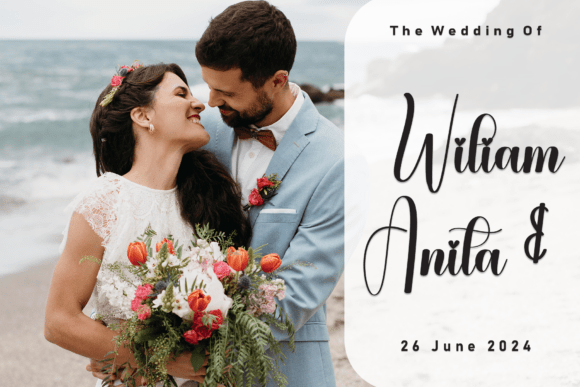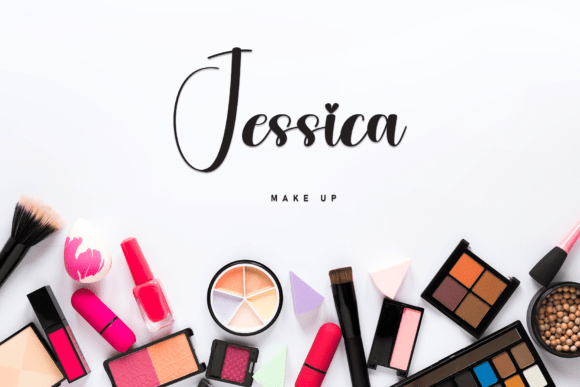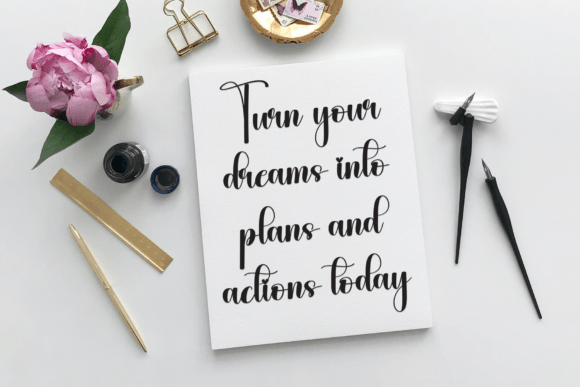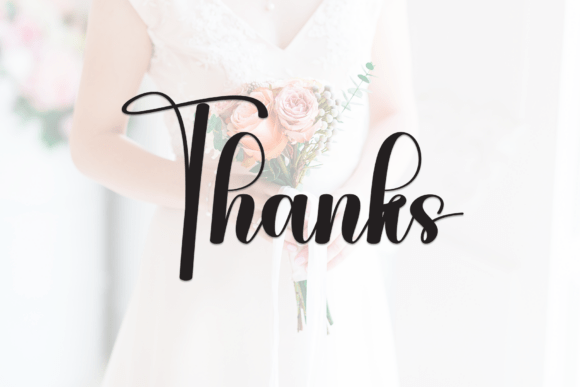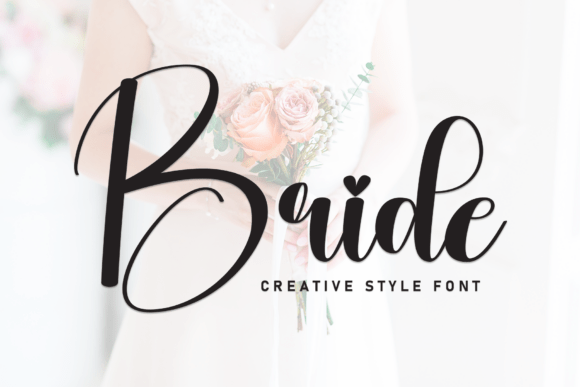
Introducing “Bride” – A Whimsically Elegant Handwritten Display Font
Are you looking for a font that embodies the perfect blend of playfulness and sophistication? Look no further than “Bride” – a beautifully crafted handwritten display font that is sure to capture your heart. With its soft, flowing strokes and endearing personality, Bride is the ideal choice for designers and crafters seeking to add a touch of warmth, joy, and intimacy to their creative projects.
A Font that Balances Playful Charm with Refined Sophistication
Bride font is a masterful balance of whimsy and elegance, making it perfect for a wide range of design applications. Whether you’re creating wedding invitations, greeting cards, or other creative projects, Bride’s unique charm is sure to shine through. Its playful strokes and refined lines create a delightful contrast that adds a radiant spark to any design.
Perfect for Wedding Invitations and Romantic Messages
Wedding invitations, anniversary cards, and romantic messages are just a few examples of where Bride font truly excels. Its elegant and intimate feel makes it an ideal choice for couples looking to add a personal touch to their special day. With Bride, you can create beautiful and unique wedding stationery that reflects your personality and style.
Adding a Personal Touch to Creative Projects
Bride font is not just limited to wedding-related designs. Its versatility makes it perfect for a wide range of creative projects, including greeting cards, party invitations, and other celebrations. Whether you’re a designer, crafter, or DIY enthusiast, Bride font is sure to inspire your creativity and add a touch of personality to your work.
Key Features of Bride Font
- Whimsically elegant handwritten display font
- Soft, flowing strokes and endearing personality
- Perfect for wedding invitations, greeting cards, and romantic messages
- Balances playful charm with refined sophistication
- Ideal for designs that seek to convey warmth, joy, and intimacy
Tips for Using Bride Font
- Use Bride font for headlines, titles, and other display text to add a touch of elegance and whimsy.
- Pair Bride font with other fonts to create a unique and visually appealing contrast.
In conclusion, Bride font is a beautiful and versatile handwritten display font that is sure to capture your heart. With its soft, flowing strokes and endearing personality, Bride is perfect for designers and crafters seeking to add a touch of warmth, joy, and intimacy to their creative projects. Whether you’re creating wedding invitations, greeting cards, or other designs, Bride font is sure to deliver a delightful blend of fun, love, and elegance in every letter.